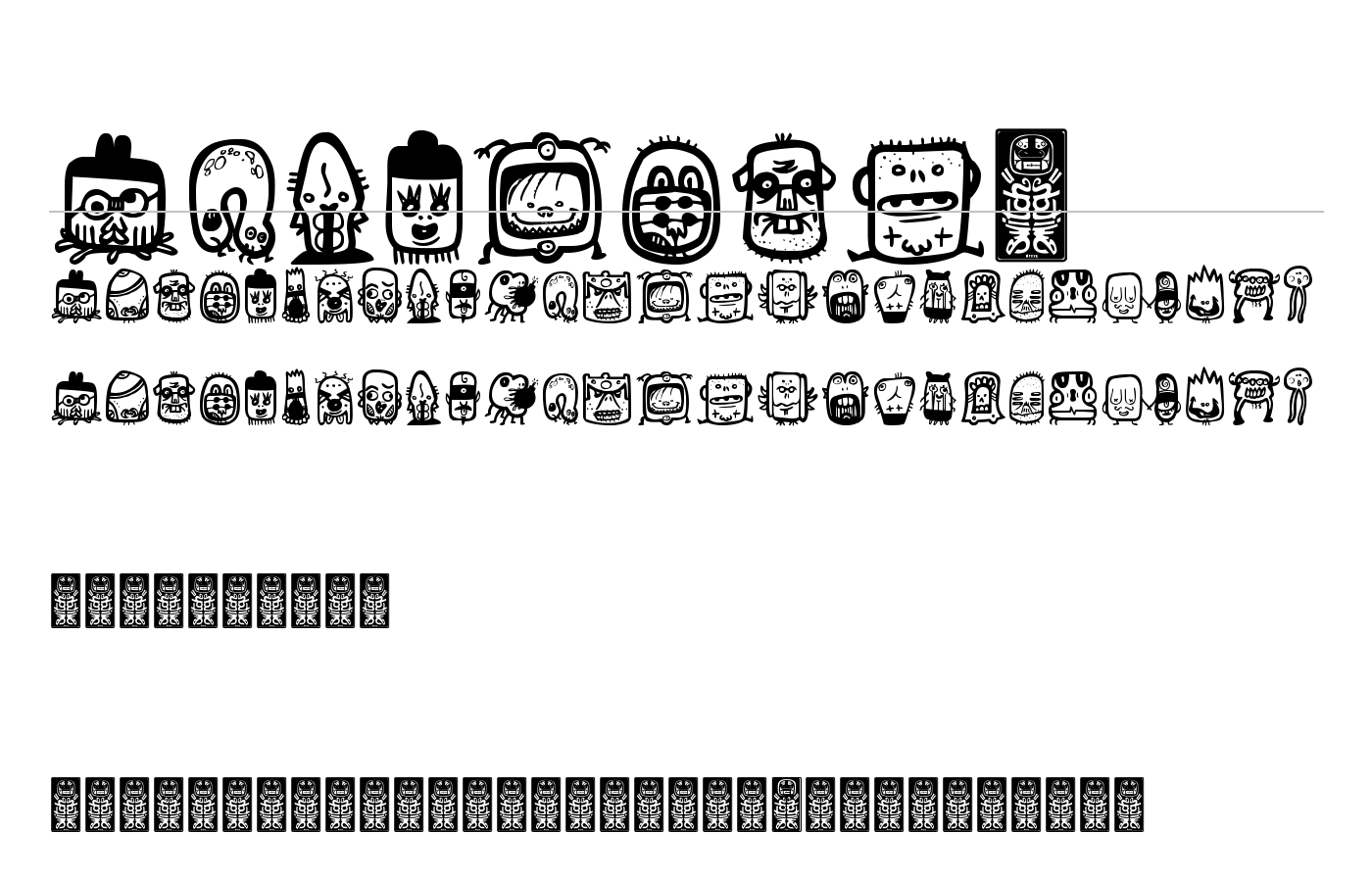
The aliendco2 font is a unique, highly decorative display typeface featuring whimsical, hand-drawn alien-like characters that serve as glyphs instead of traditional letters. With its playful, quirky style and intricate details, it works best for creative projects, logos, or posters aiming for a fun, unconventional look rather than body text. This font adds a distinctive, imaginative personality to designs that want to stand out with a sci-fi or fantasy theme.
aliendco2 Font